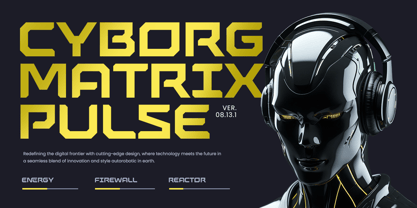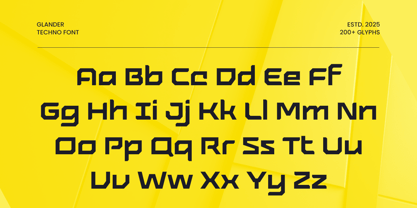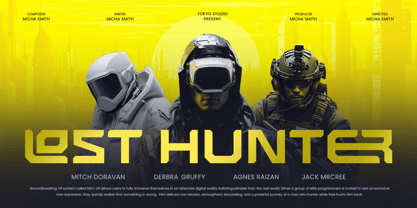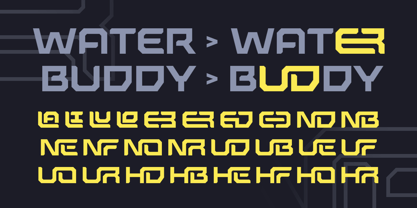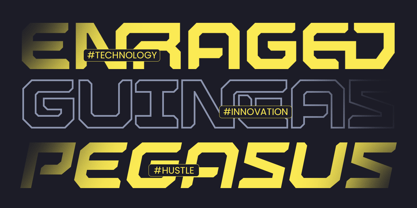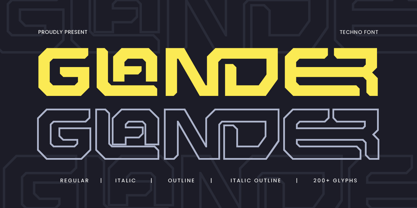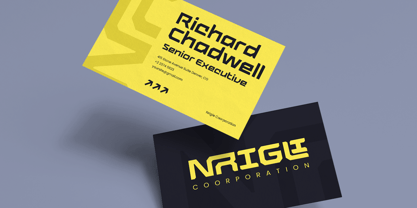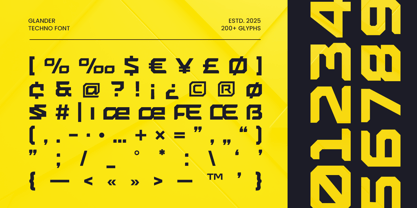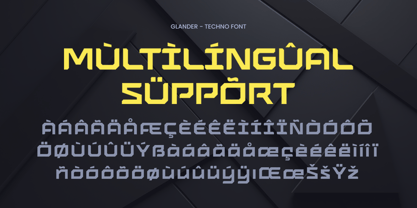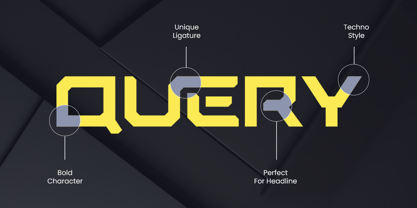
Glander
The Glander Font Family was designed by Zamroni Hamzah and published by Sensatype Studio. Glander contains 4 styles and family package options. More about this family
Glander is a modern techno font designed to deliver a high-tech and futuristic aesthetic. With sharp lines, geometric precision, and a digital feel, this font is perfect for technology branding, esports, sci-fi posters, app interfaces, or any design that demands a modern and technical vibe.
Its strong structure makes it highly legible while maintaining a distinctive, forward-thinking style. Whether you're building a cyberpunk-inspired game, a digital agency logo, or UI/UX elements, Glander adds energy and modernism to every element.
Step into the future of design with Glander — a techno font that combines function with futuristic flair.
Glander Techno Font Features:
• Bold Techno Display Style
• Available 4 Styles: Regular, Outline, Italic, Outline Italic
• Ideal for Gaming, Technology, Branding & UI
• Punctuation, Numbers, and Symbols
• Uppercase and Lowercase
• Opentype Features
Multilingual Characters available for:
Afrikaans, Albanian, Asu, Basque, Bemba, Bena, Breton, Chiga, Cornish, Dutch, English, Estonian, Filipino, Finnish, Friulian, Galician, German, Gusii, Indonesian, Irish, Italian, Kabuverdianu, Kalenjin, Kinyarwanda, Luo, Luxembourgish, Luyia, Machame, Makhuwa-Meetto, Makonde, Malagasy, Manx, Morisyen, North Ndebele, Nyankole, Oromo, Portuguese, Quechua, Romansh, Rombo, Rundi, Rwa, Samburu, Sango, Sangu, Scottish Gaelic, Sena, Shambala, Shona, Soga, Somali, Spanish, Swahili, Swedish, Swiss.